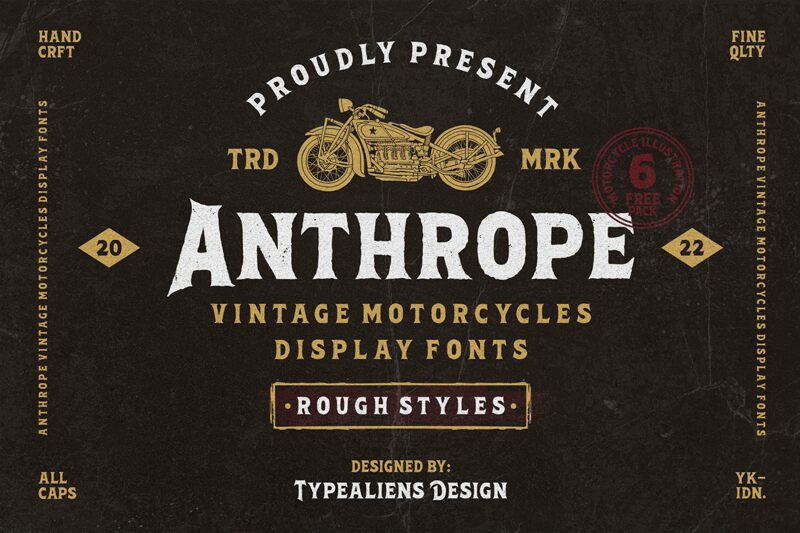
Anthrope font by ilhamtaro is a bold gothic font with vintage influences and strong visual appearances that are hard to ignore. Each letter is thick with a touch of distressing that gives it a slightly rugged feeling. Combining these elements makes this typeface perfect for designs with classical and medieval themes.
Advertise your escape room, create branding logos for magic schools, label paths on your environment map, or write delightful book covers. You might even use Anthrope on web graphics like blogs that demand some personality tailing the letters in the titles. It however also supports apps' interfaces, game designs screens including their cover designs and more simple projects like posters, wedding invites or corporate invitations!